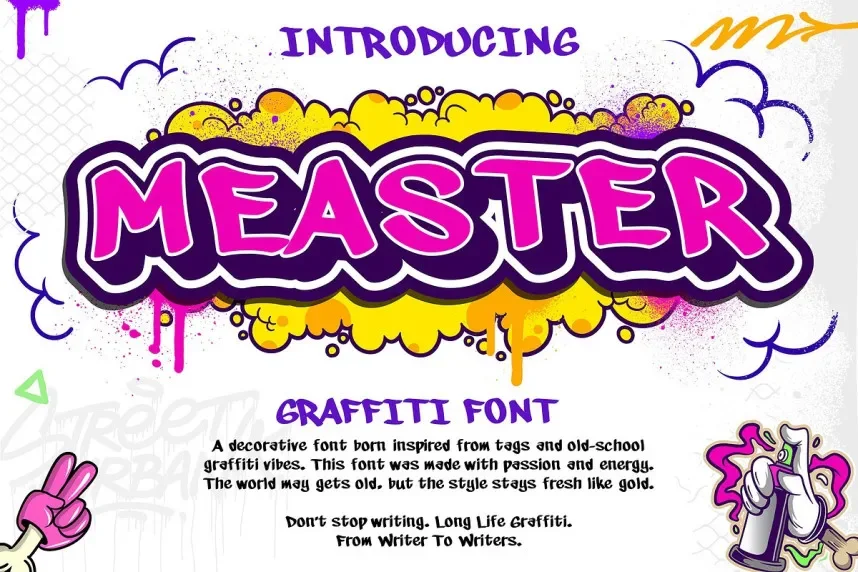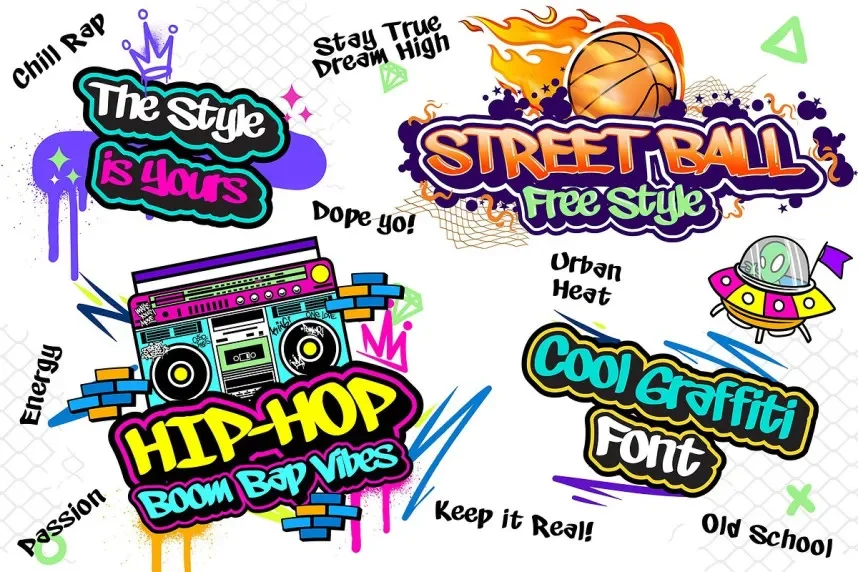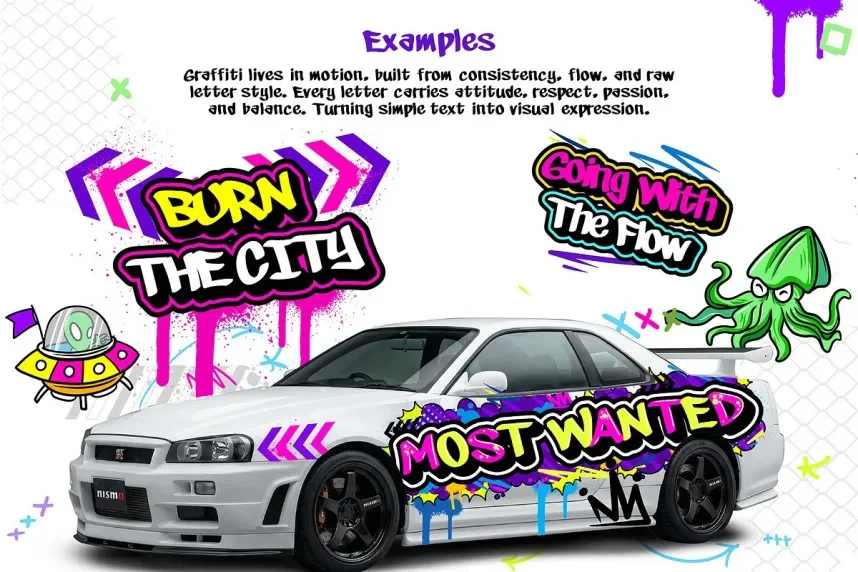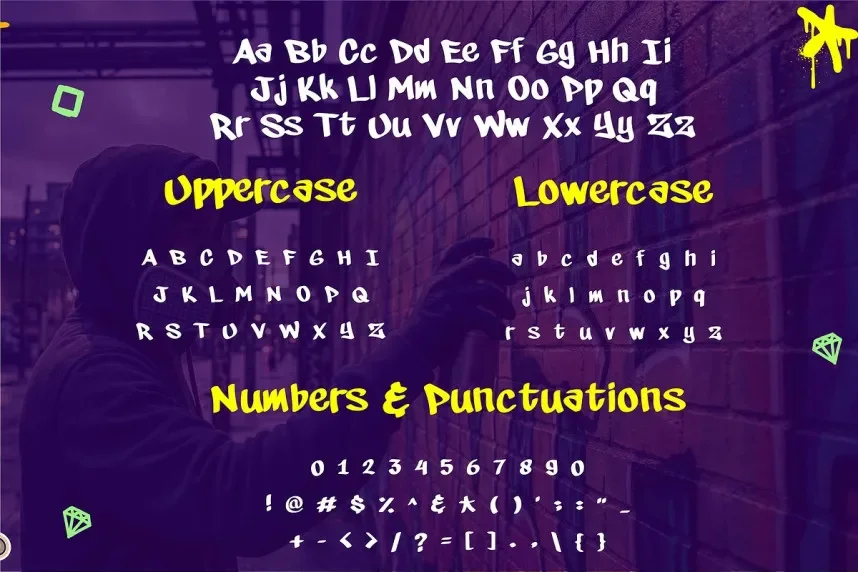
Measter Graffiti Font is an urban-inspired, bold typeface with an artistic, spray-painted look. Its rough edges and irregular shapes give it a rebellious, street-style appearance, making it perfect for designs that require an edgy and creative feel.
Best used for posters, street art, and urban branding, Measter Graffiti Font pairs well with minimal fonts for clarity in body text. Available in TTF and OTF formats, it includes a commercial-use license. Always check licensing details before commercial use.